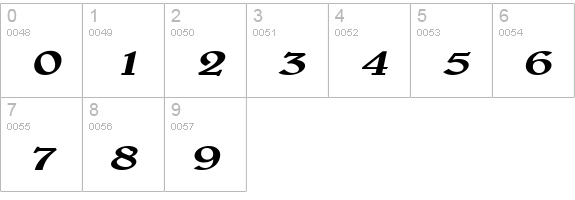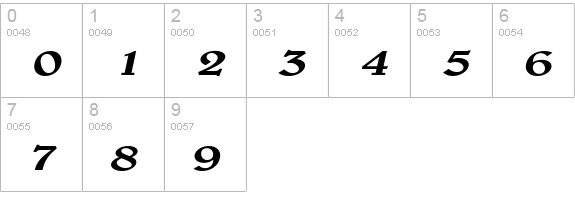
Blew Extended Italic is a distinctive, extended-width, italic variant in the Blew typeface family \xE2\x80\x94 well suited to design and typography projects.
Blew Extended Italic font is a sleek and modern typeface that exudes sophistication and style. Its italicized design adds a touch of elegance to any project, making it perfect for branding, editorial design, and more. The extended characters give this font a unique and contemporary look that will make your text stand out. Best of all, Blew Extended Italic font is available for free download at FontsMarket.com. This means you can easily add this stunning typeface to your collection without any cost. Don't miss out on the opportunity to enhance your designs with this beautiful and versatile font. Download Blew Extended Italic today and elevate your projects to the next level.